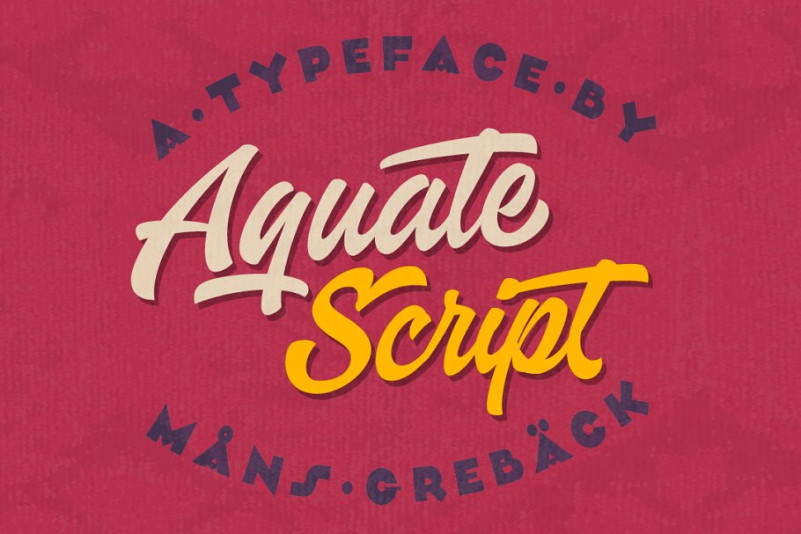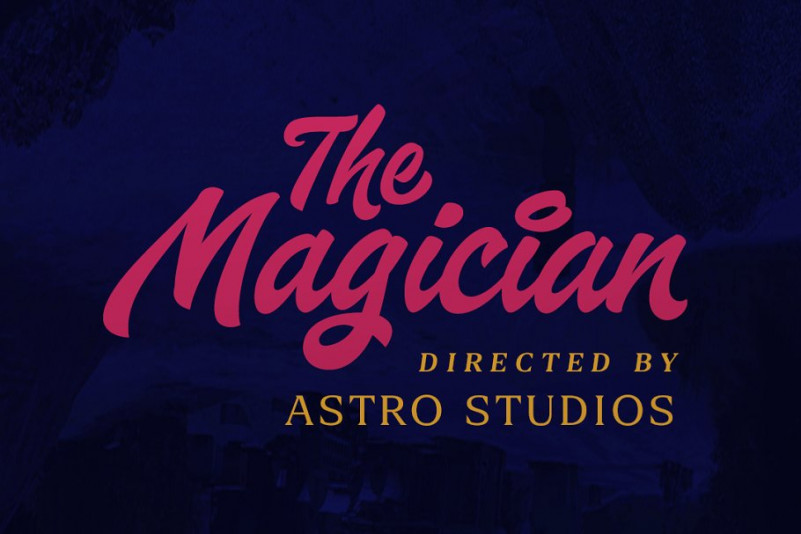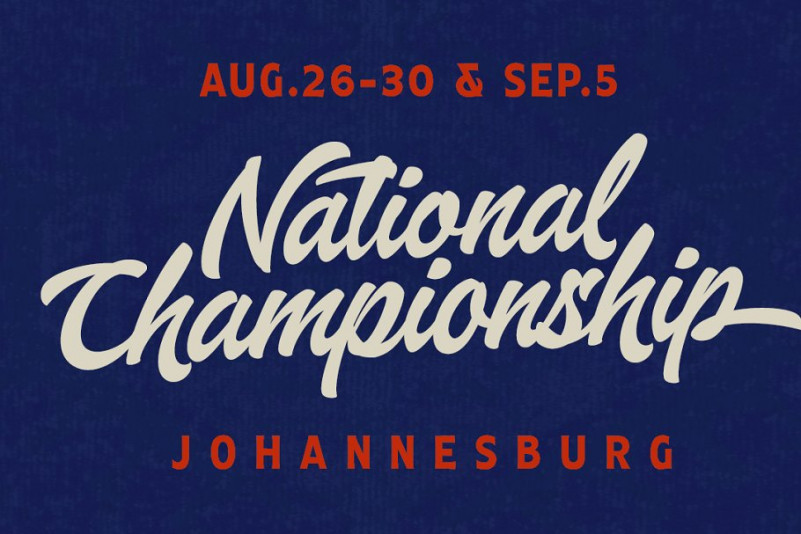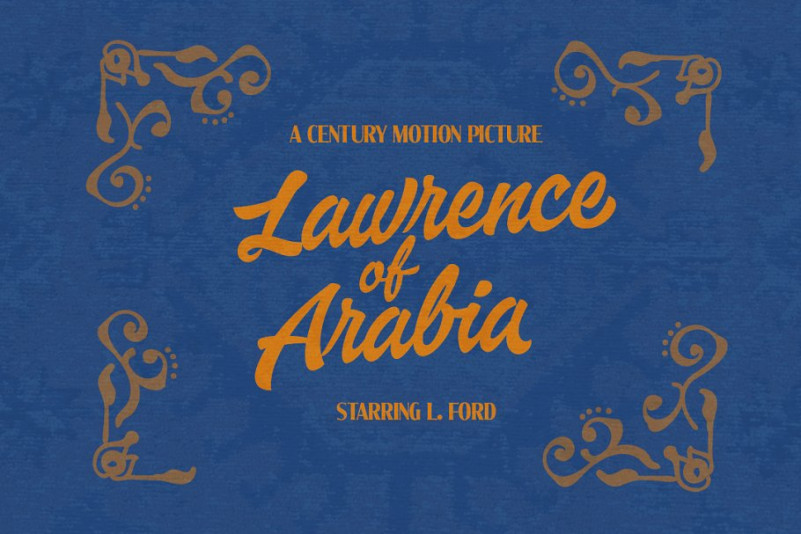
Aquate Script Font
A new stylish handmade calligraphy font by Mans Greback. This is a casual calligraphy style font which perfects for branding, a stylish & bold script font! Introducing Aquate Font. It’s a professional brush script typeface. It displays a fast but confident movement, with bold curves contrasting sharp corners. With it’s multiple alternate alphabets, it is greatly adaptable and really gives a logo or headline the impression of being a custom, hand-painted type.